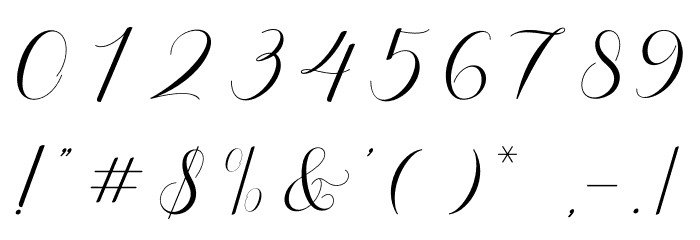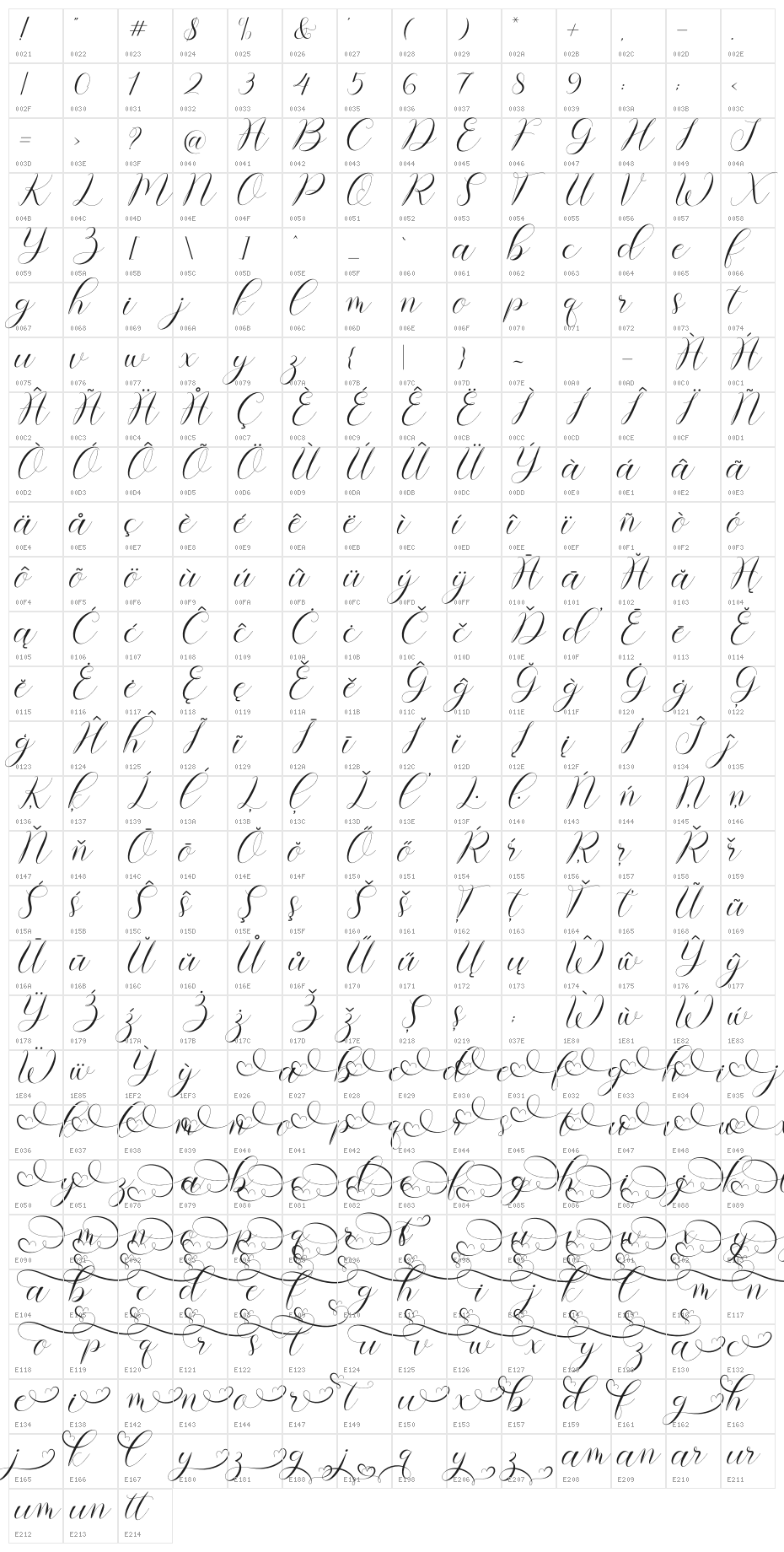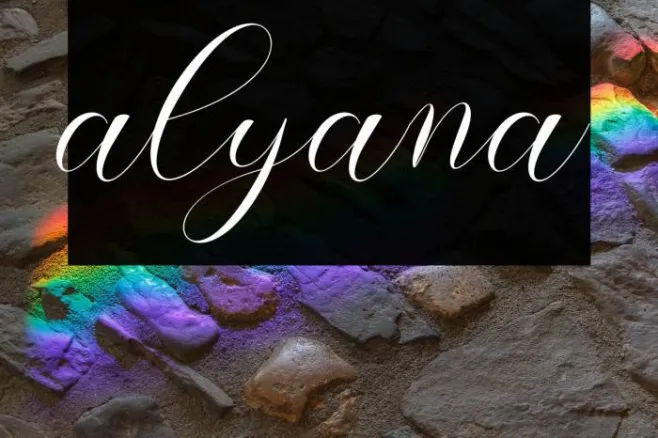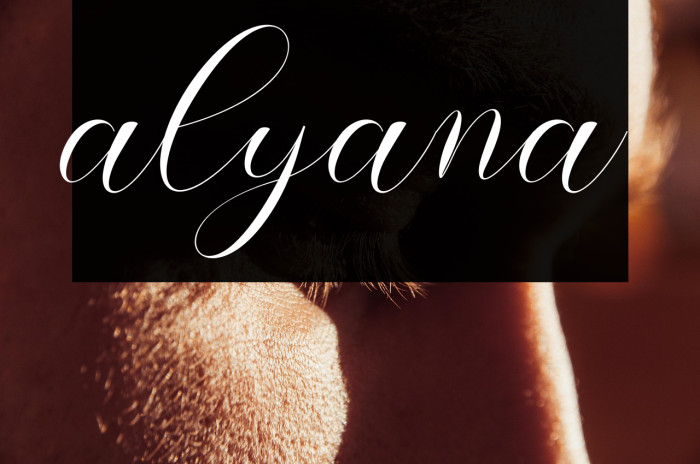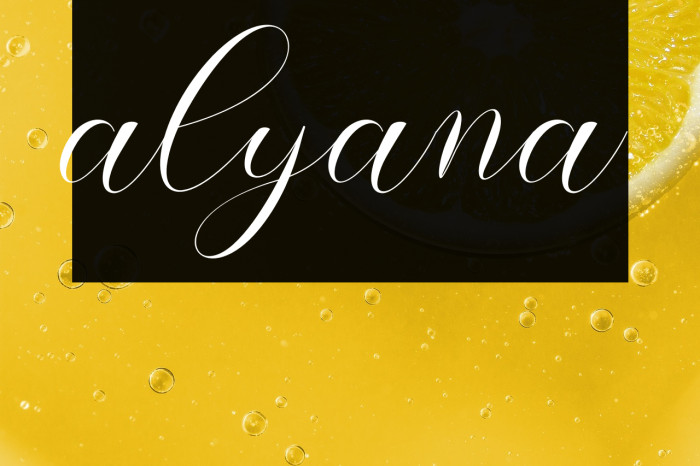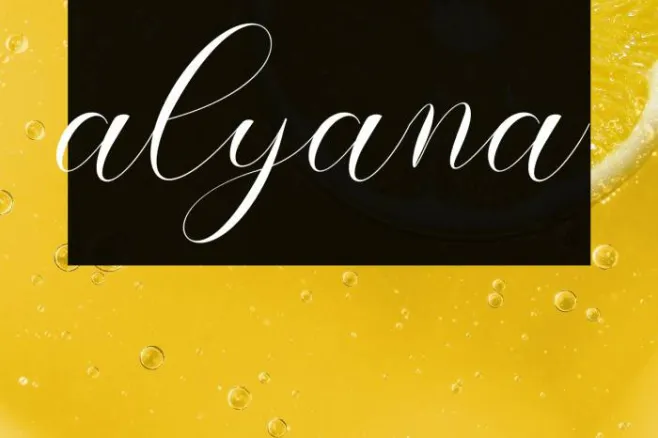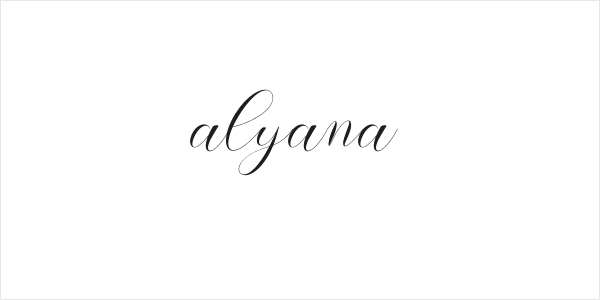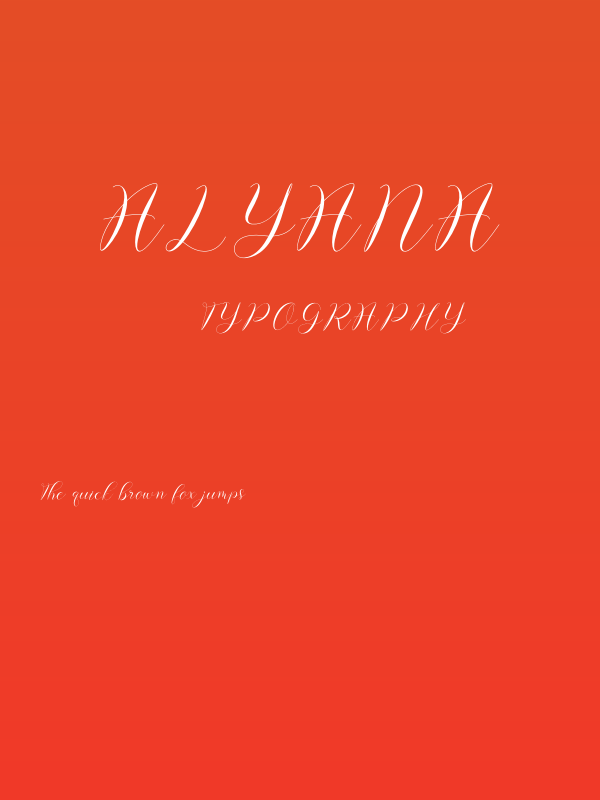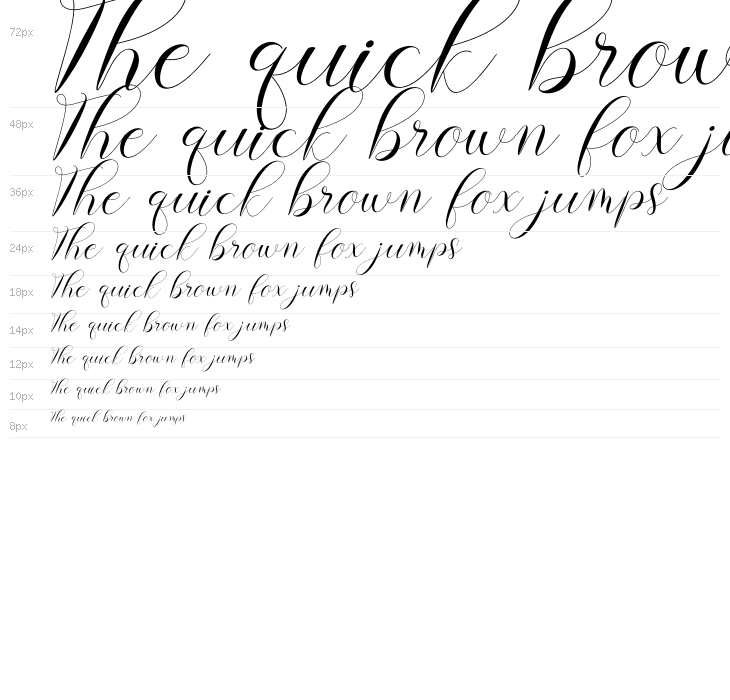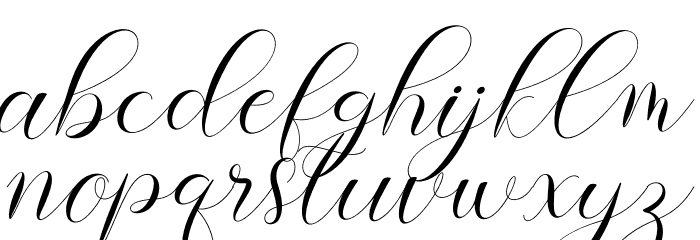
alyana Font
alyana Description
This elegant script font features flowing, interconnected letters with a refined and sophisticated appearance. The uppercase letters are tall and graceful, with delicate loops and swashes that add a touch of luxury. The lowercase letters maintain a consistent flow, enhancing readability while retaining an artistic flair. Numbers and special characters are designed with the same attention to detail, ensuring a cohesive look across all text elements. The thin, high-contrast strokes give the font a light and airy feel, making it ideal for formal invitations, branding, and other upscale design projects.